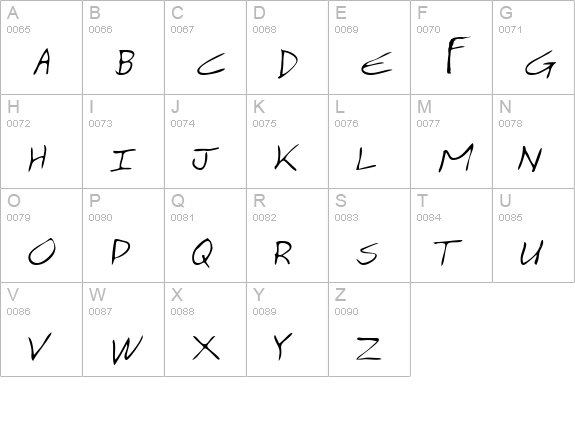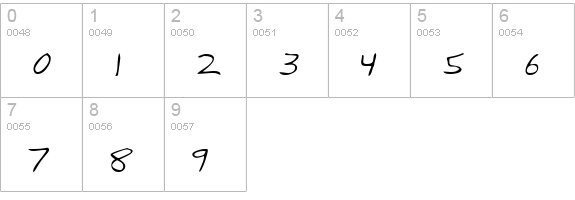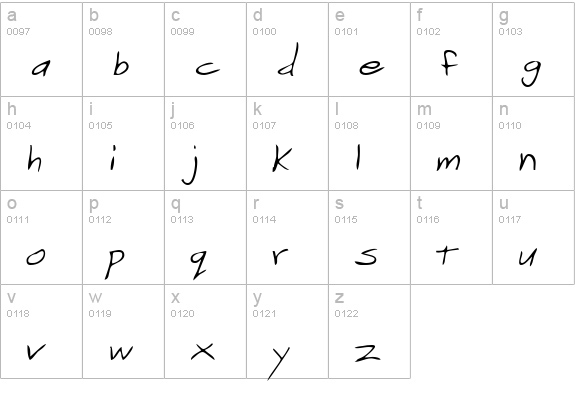
ZonkersHand Font Details
ZonkersHand font is a whimsical and playful typeface that adds a touch of fun and creativity to any design project. Its hand-drawn look and quirky character make it perfect for children's books, greeting cards, posters, and more. The irregular lines and uneven strokes give ZonkersHand a unique charm that sets it apart from other fonts. Best of all, ZonkersHand is completely free to download at FontsMarket.com. Embrace the joy and spontaneity of ZonkersHand font in your next project and watch it come to life with personality and flair.